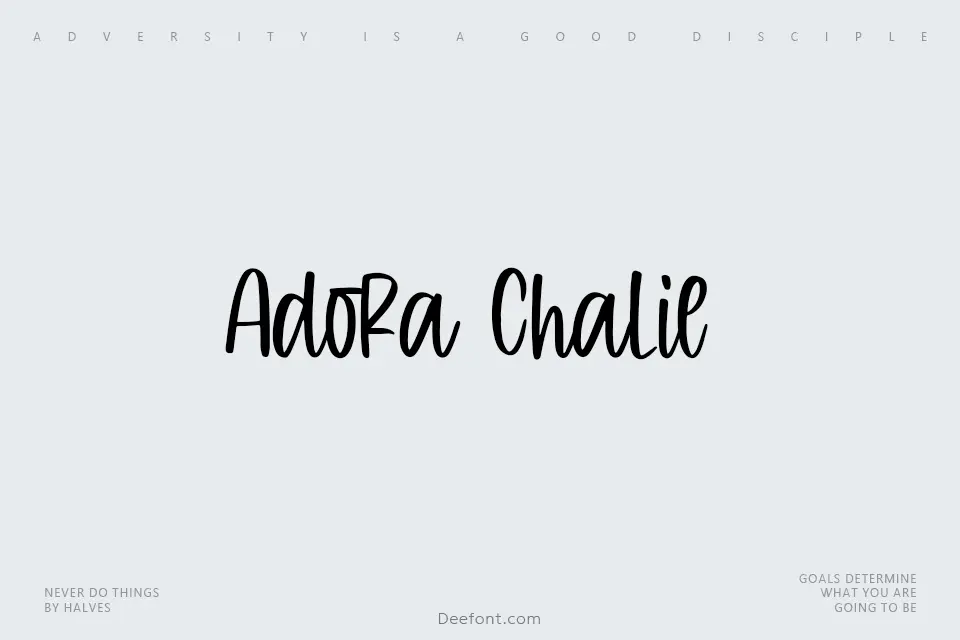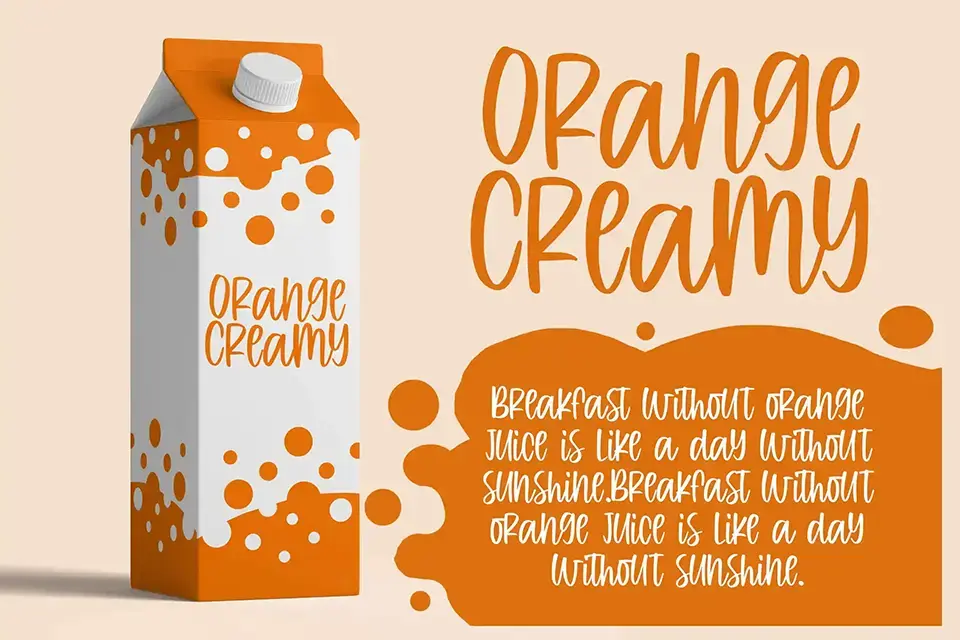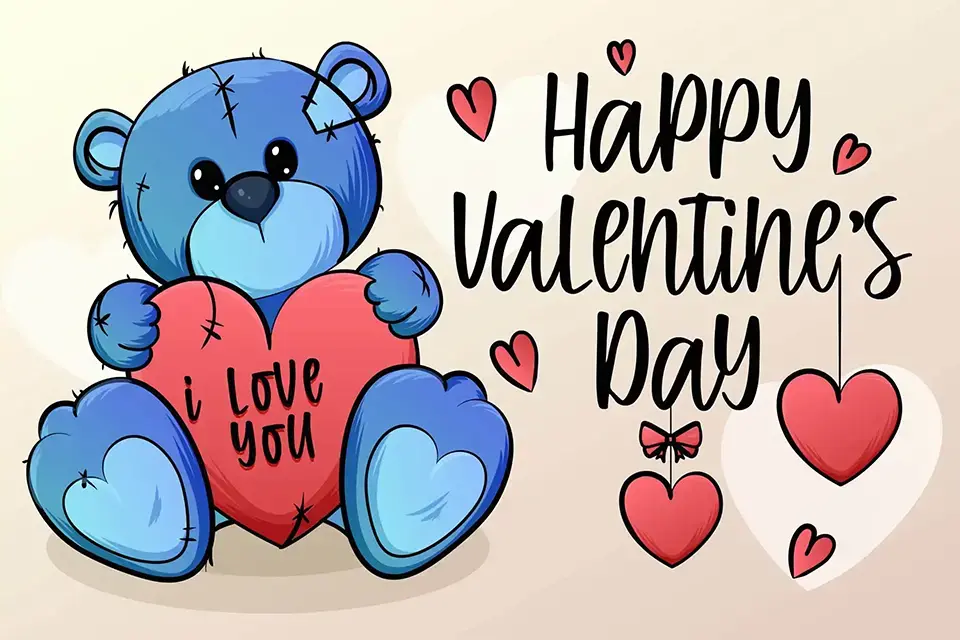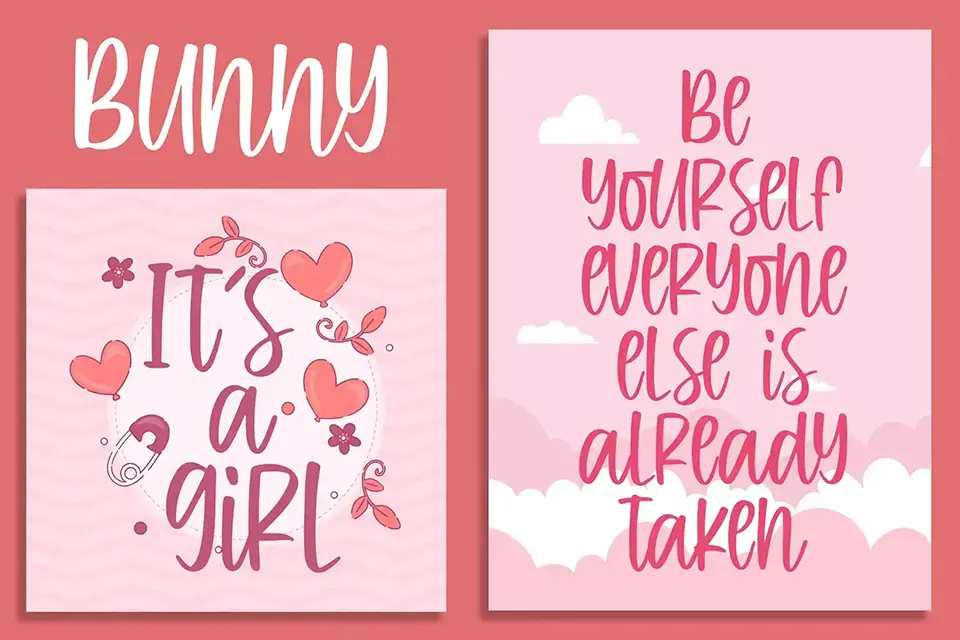
Adora Chalie Font
Adora Chalie is an exuberant handwritten script font characterized by irregular letterforms and a distinctly bouncy, playful quality. The typeface combines bold strokes with whimsical irregularities, making it exceptionally suited for creative headlines, eye-catching posters, logo designs, wedding invitations, and social media graphics. Its uninhibited personality brings an instant sense of fun and contemporary flair to any design, from packaging and branding to decorative lettering and artistic typography projects.